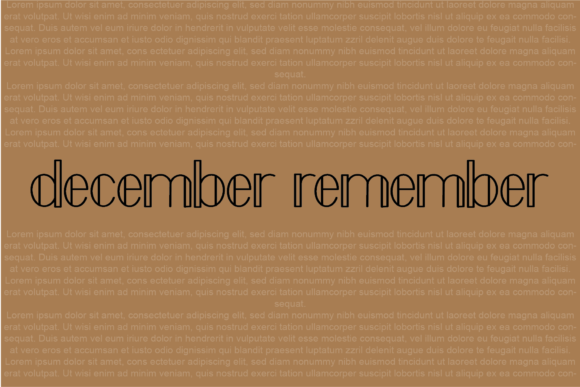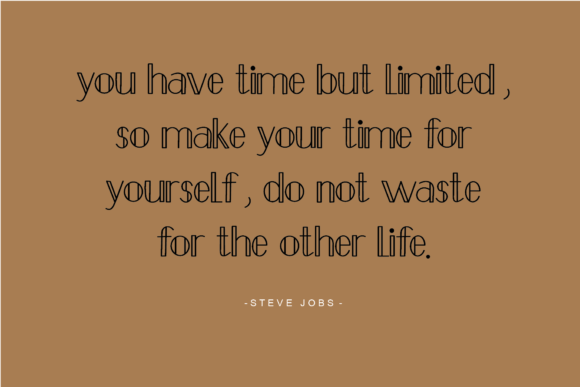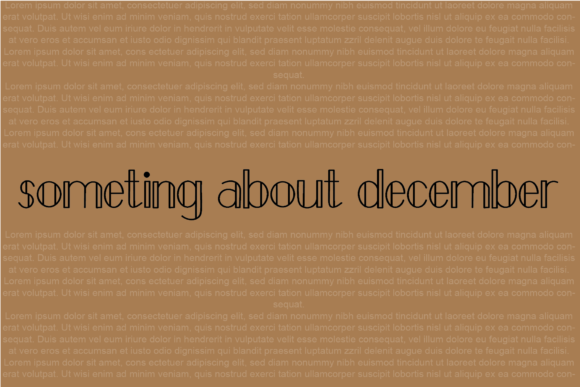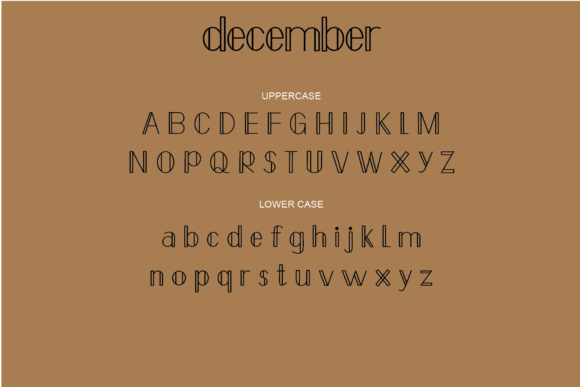
Introducing December Font: The Bold and Cool Display Font for Modern Designs
Are you tired of using the same old fonts for your creative projects? Look no further! December Font is here to revolutionize your designs with its bold and cool display font that exudes a modern and futuristic vibe. In this article, we’ll dive into the features and benefits of December Font, and explore how it can elevate your designs to the next level.
The Perfect Font for Modern Designs
December Font is a display font that is specifically designed to make a statement. Its bold and sleek lines make it perfect for headlines, titles, and any other design element that needs to grab attention. The font’s modern and futuristic look is sure to make your designs stand out from the crowd, whether you’re working on a branding project, a website, or a marketing campaign.
Key Features of December Font
- Bold and Cool Design: December Font is designed to be bold and eye-catching, making it perfect for designs that need to make a statement.
- Modern and Futuristic Vibe: The font’s sleek lines and futuristic look give it a modern feel that’s perfect for designs that need to be cutting-edge.
- Highly Versatile: December Font can be used for a wide range of design projects, from branding and advertising to web design and crafting.
- Easily Readable: Despite its bold design, December Font is highly readable, even at smaller sizes.
Benefits of Using December Font
So why should you choose December Font for your designs? Here are just a few benefits of using this amazing font:
- Adds a Professional Touch: December Font is designed to look professional and polished, making it perfect for designs that need to look high-end.
- Grabs Attention: The font’s bold design is sure to grab attention and draw the eye to your design.
- Enhances Creativity: December Font is a versatile font that can be used in a wide range of design projects, making it perfect for designers and crafters who want to push their creative boundaries.
Tips and Tricks for Getting the Most Out of December Font
Here are a few tips and tricks for getting the most out of December Font:
- Use it as a Headline Font: December Font is perfect for headlines and titles, so use it to grab attention and draw the eye to your design.
- Experiment with Different Colors: Try out different colors to see what works best with December Font and your design.
- Pair it with Other Fonts: December Font pairs well with other fonts, so try experimenting with different font combinations to find the perfect look.
| Font Name | December Font |
| Author | hl_studio |
In conclusion, December Font is a bold and cool display font that is perfect for modern designs. Its sleek lines and futuristic look make it a versatile font that can be used in a wide range of design projects. Whether you’re a designer or a crafter, December Font is sure to elevate your designs to the next level. So why wait? Download December Font today and start creating amazing designs that stand out!